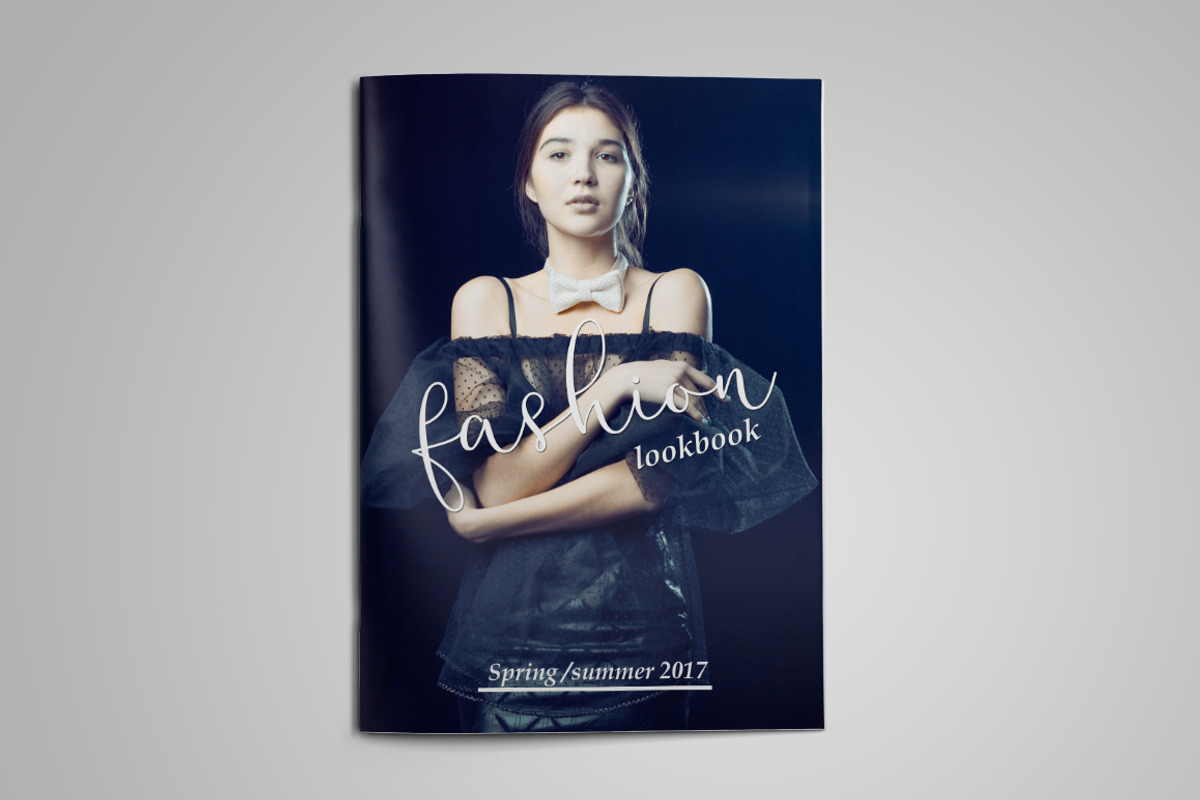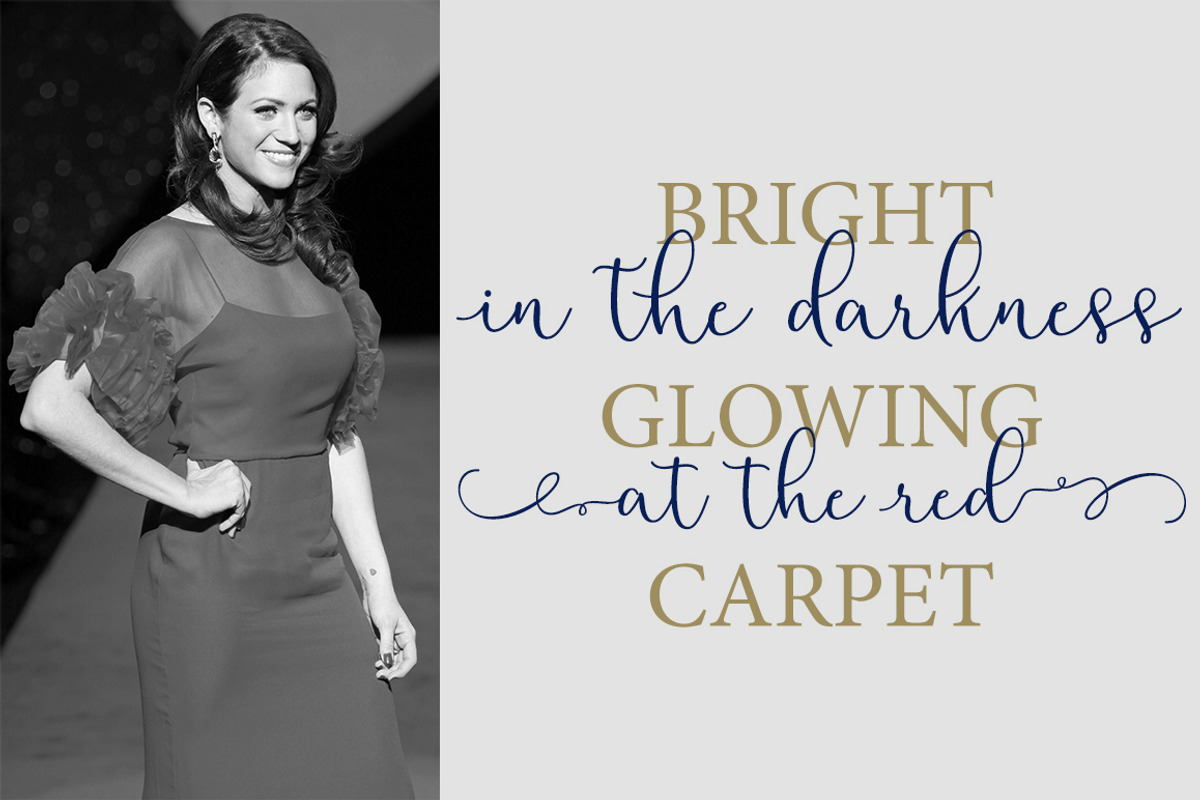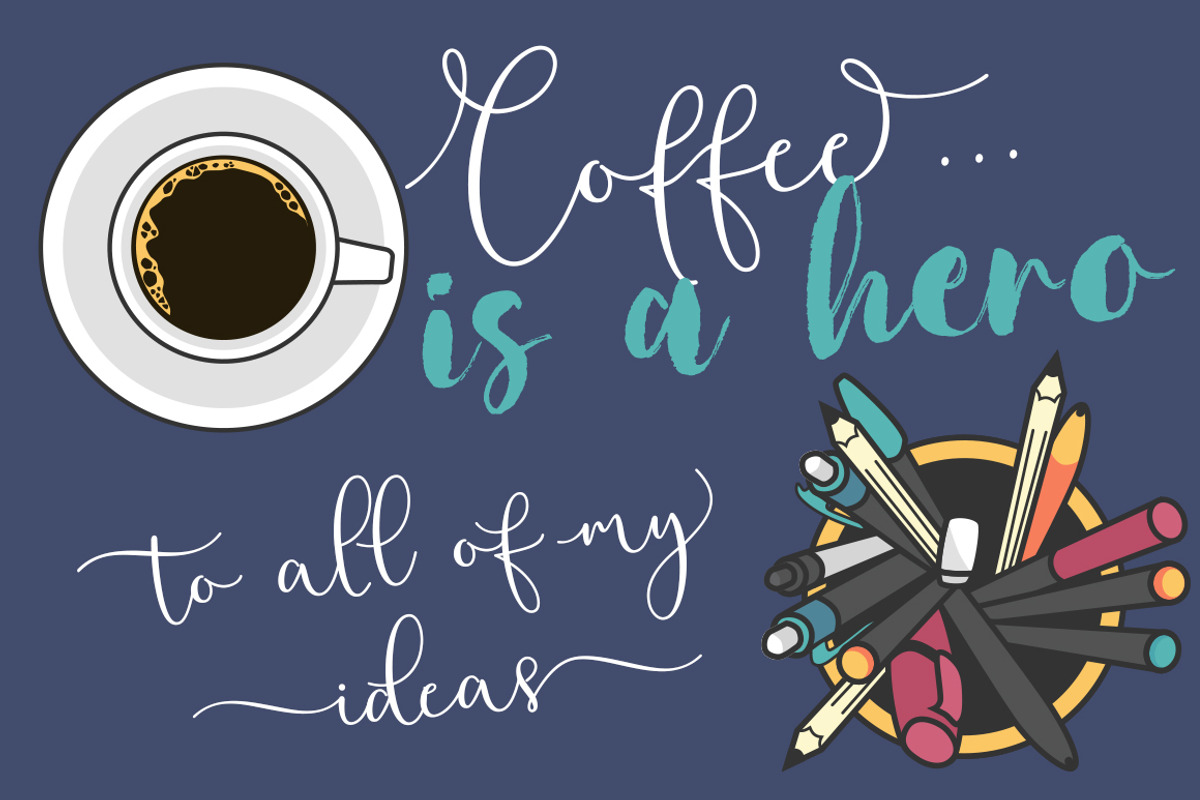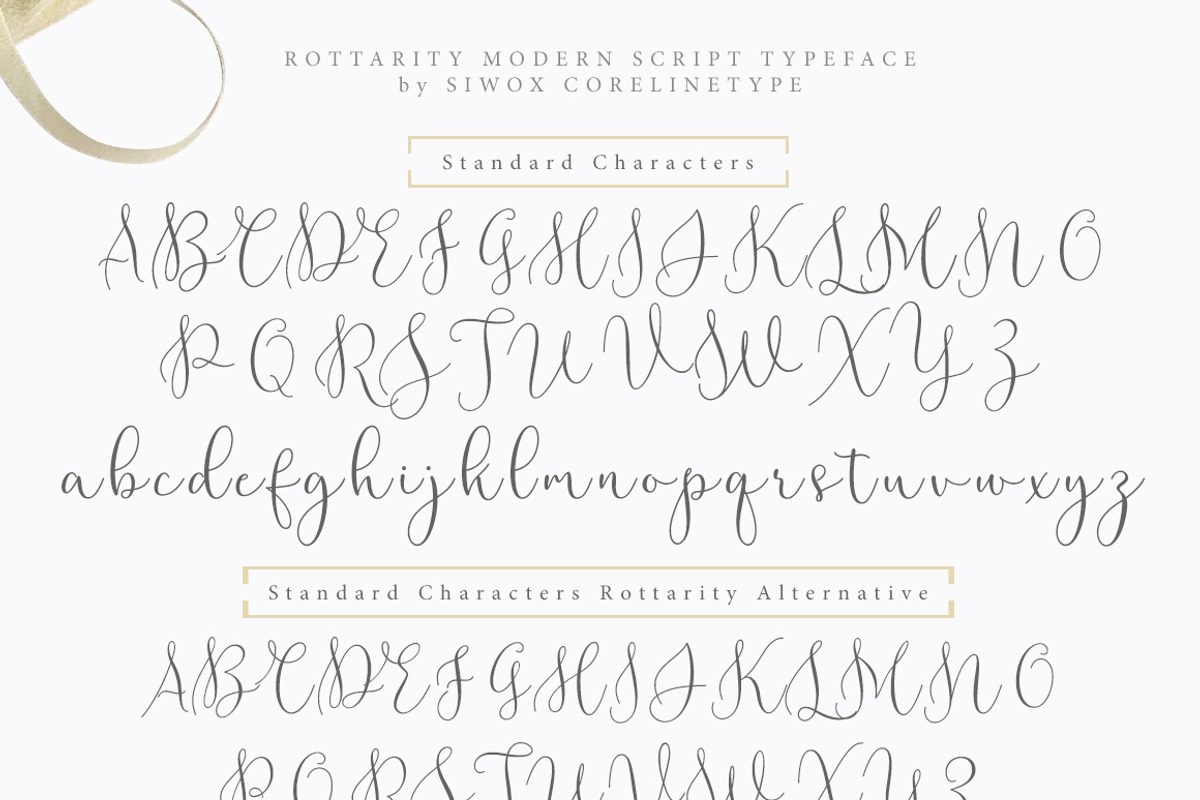
Rottarity Feminine
New Update 31 Ligatures!
Rottarity Feminine, connecting script, designed to convey elegance and style. It is slender, feminine and friendly, let alone sexy. Rottarity Feminine will work perfectly for fashion, e-commerce brands, trend blogs, or any business that wants to appear classy and chic.
The font is ideal for high-end logotypes and magazine headlines, but let’s not forget greeting cards, invitations, posters, ads, and the various web usages.
When it comes to the glyph set, well, Rottarity Feminine has quite a lot of that (639+ glyphs) - think multiple languages, swashes, and stylistic alternates to unleash your creativity. For all pragmatists out there, there is also a basic version of the font with an extended Latin glyph set (no swashes, contextual alternates or stylistic sets).
This font support accent letters of Central Europa, Western (À Â Æ È Ë ã ä æ è...), if you have another request, don't hesitate contact or request me :)